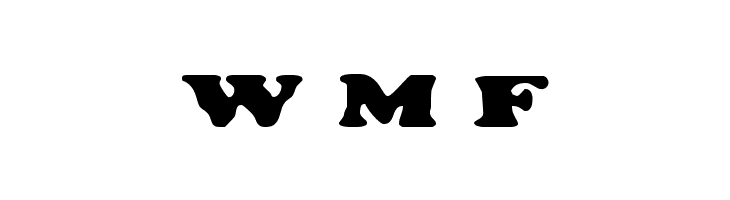
Army Watch Divided Regular Font
A bold, three-dimensional font with a strong, authoritative style.
Army Watch Gleam Regular Font
A bold, three-dimensional font with a shadow effect, ideal for impactful headlines.
AtomicBomb Font
A bold, blocky font with a modern, industrial aesthetic.
Bazooka Regular Font
A bold, dynamic font with rounded strokes and a playful, energetic style.
Bionic Type Italic Font
A futuristic, italicized font with sharp, angular lines and a digital aesthetic.
Bionic Type Light Font
A futuristic, geometric font with sharp, angular lines and a technical aesthetic.
Black Ops One Font
A bold, geometric font with a military-inspired design.
BN Machine Font
A bold, geometric font with strong, angular lines and a modern, industrial feel.
BODIDLYbold Font
A bold serif font with strong, authoritative strokes and pronounced serifs.
Bomber Escort Font
A bold, geometric font with sharp angles and a strong, modern presence.
Bomber Escort Condensed Font
A bold, angular, and condensed font with a strong, geometric design.
Bomber Escort Expanded Font
A bold, angular font with a futuristic, military-inspired design.
Bomber Escort Leftalic Font
A bold, angular font with a dynamic, military-inspired design.
BomberNumbers Font
Bold, blocky numerals with an industrial, military-inspired style.
Bravo Destroyer Personal USE regular Font
A bold, angular font with a futuristic, geometric design.
Bric-a-Braque Font
A bold, geometric font with sharp, angular shapes.
brigade army Font
A bold, angular font with a military-inspired aesthetic.
Brigade Army Bold Font